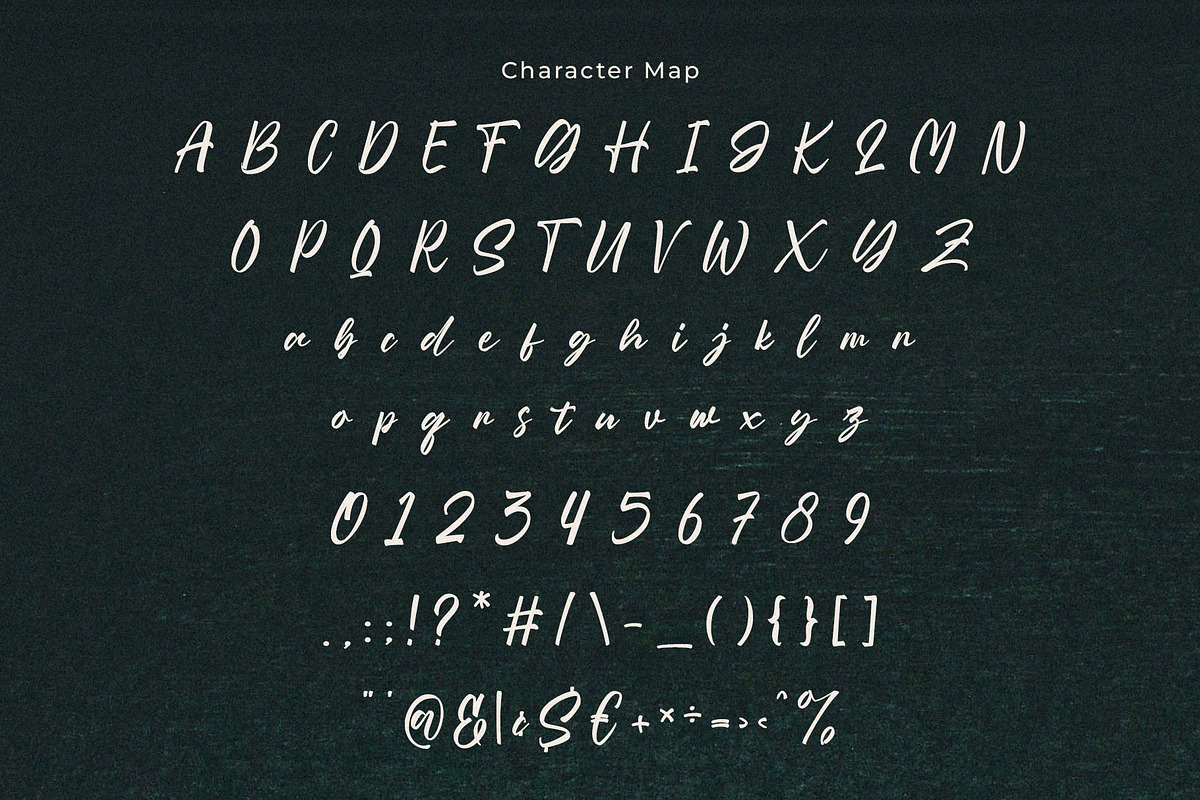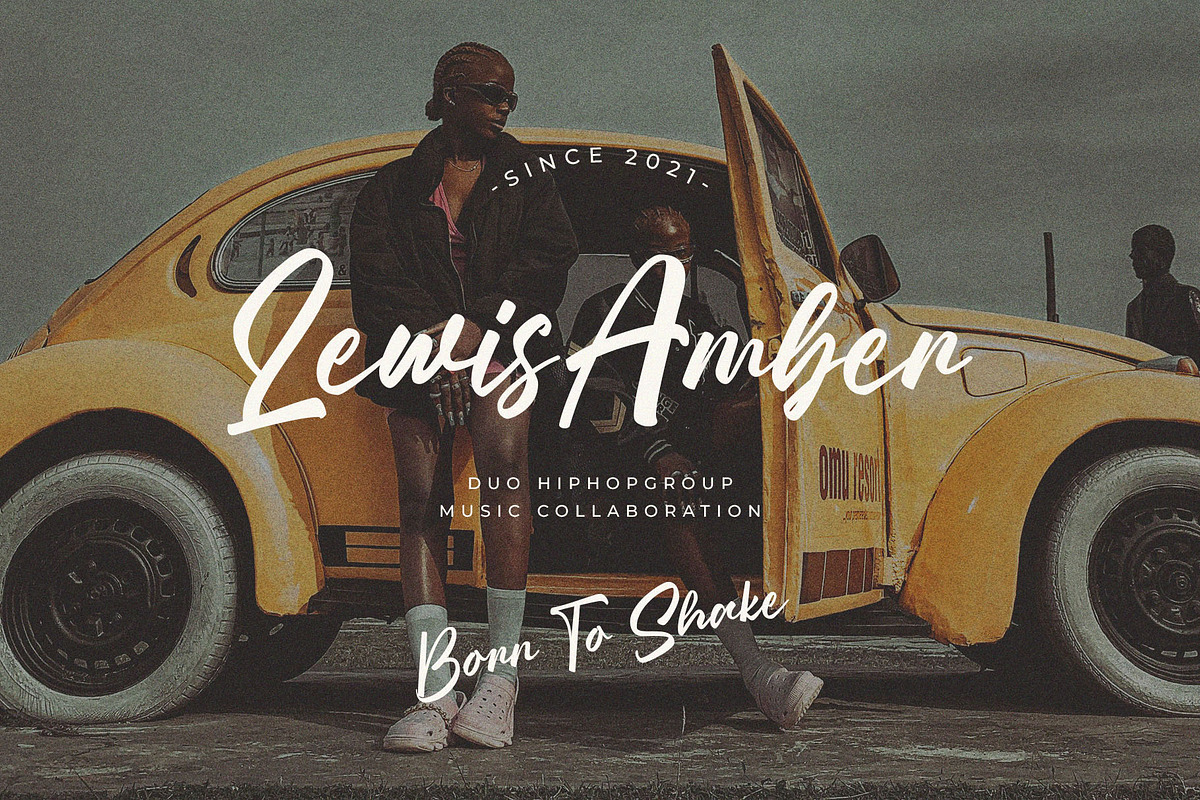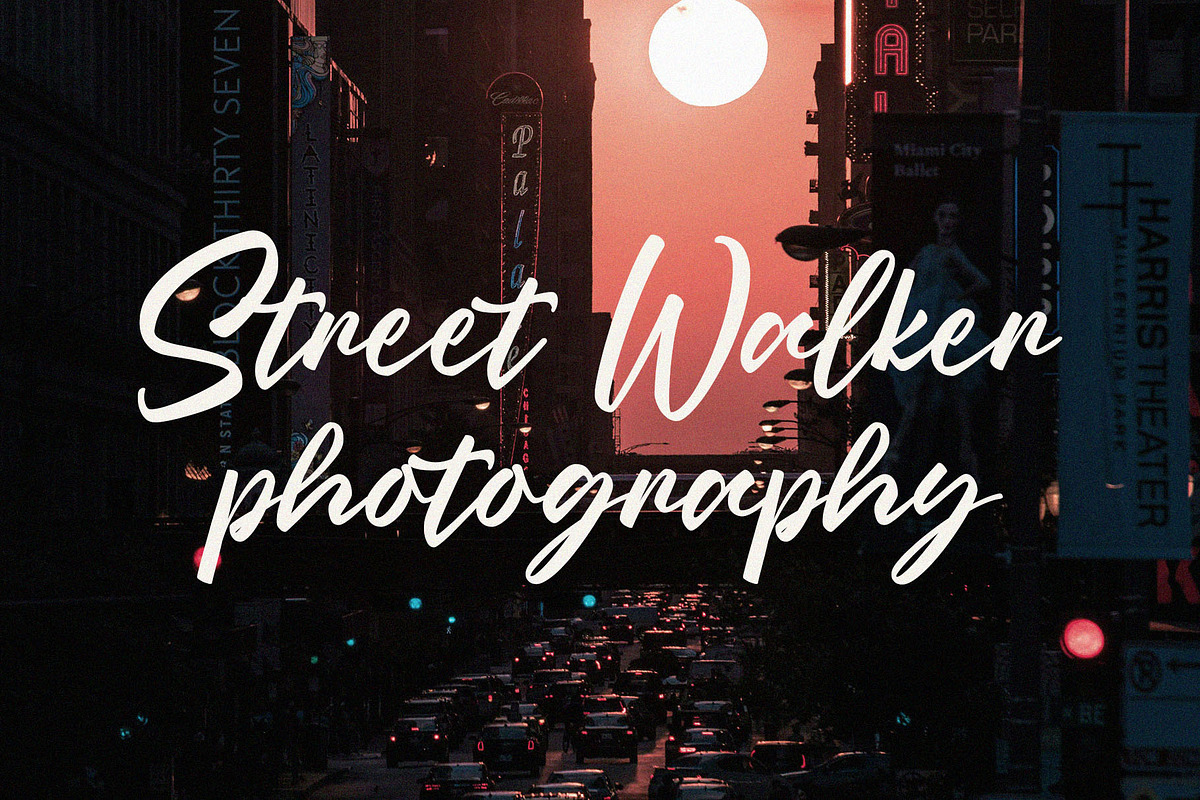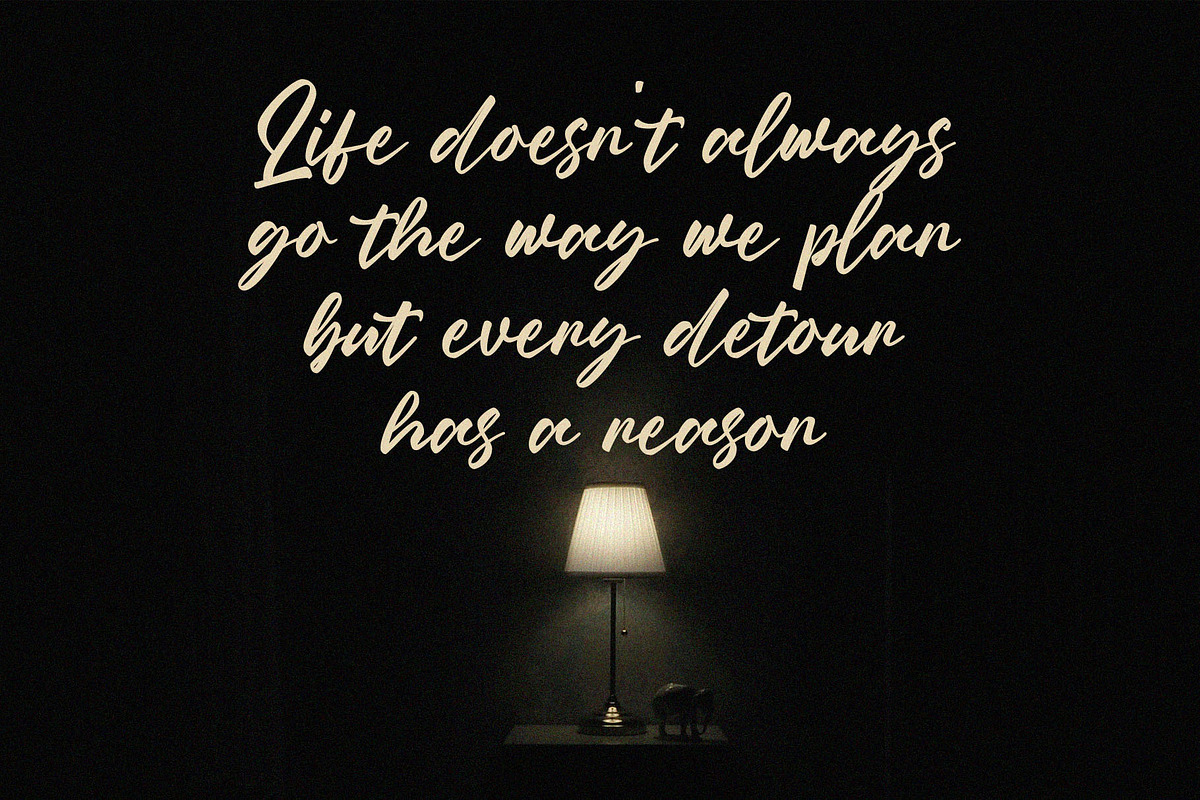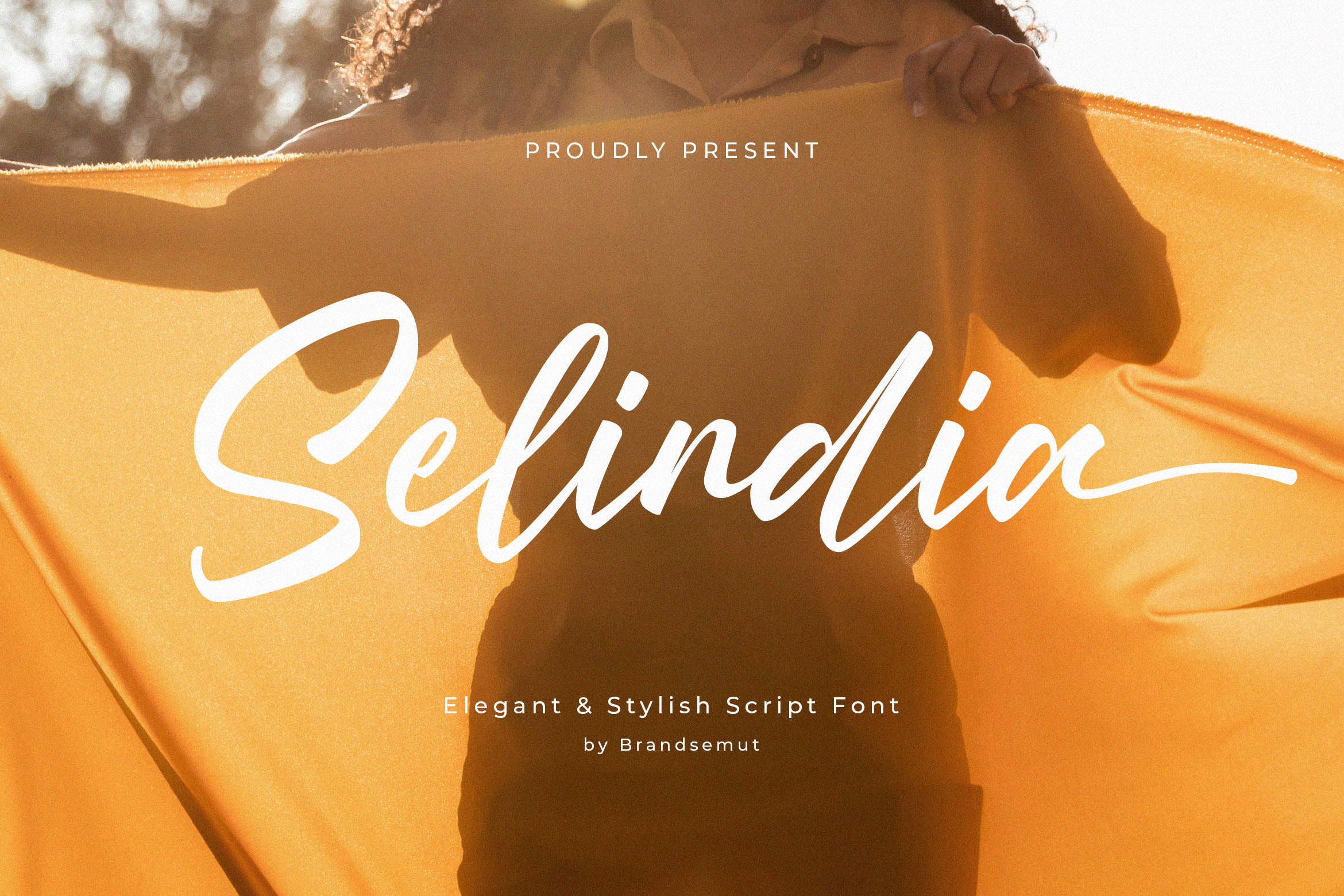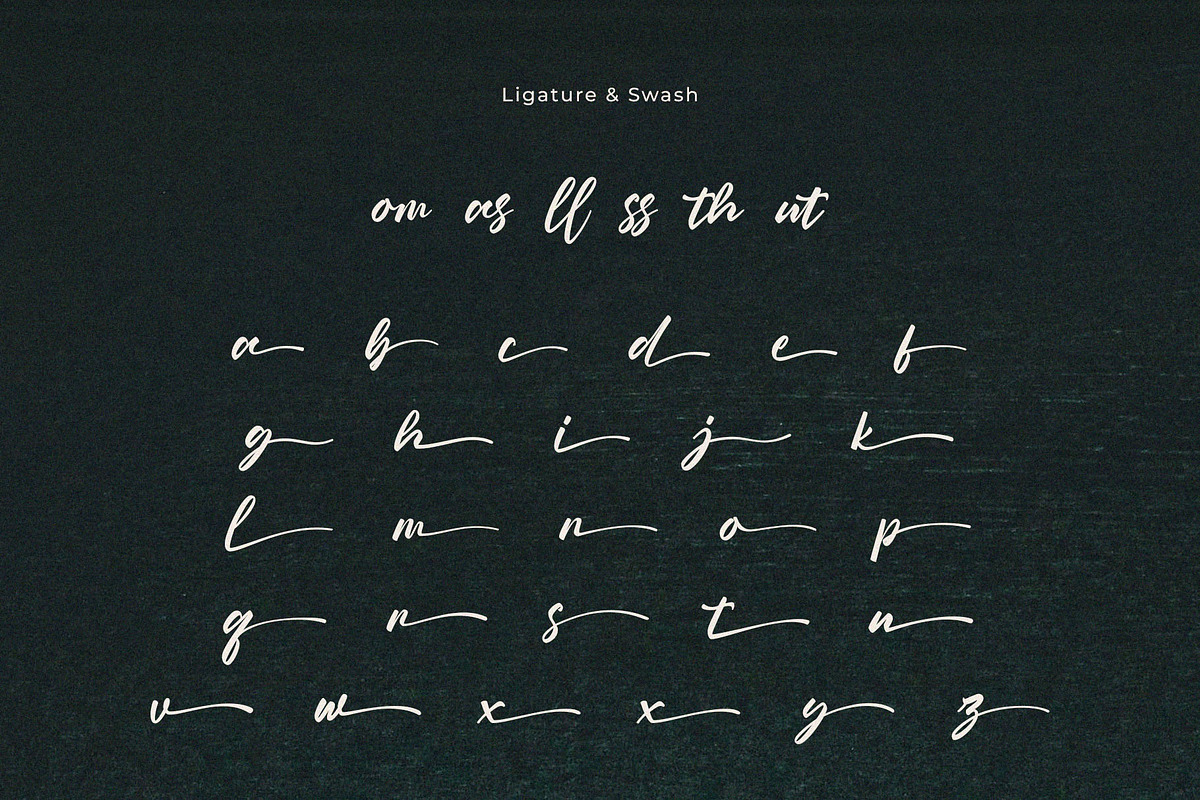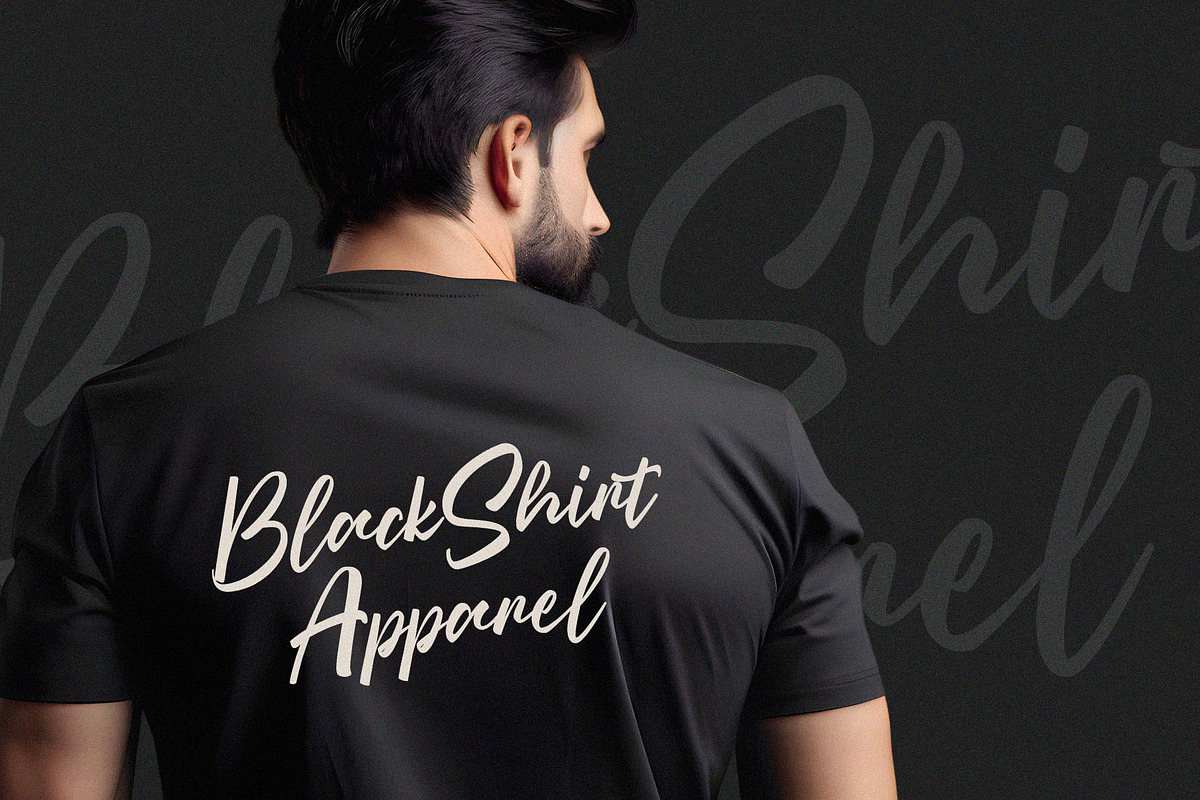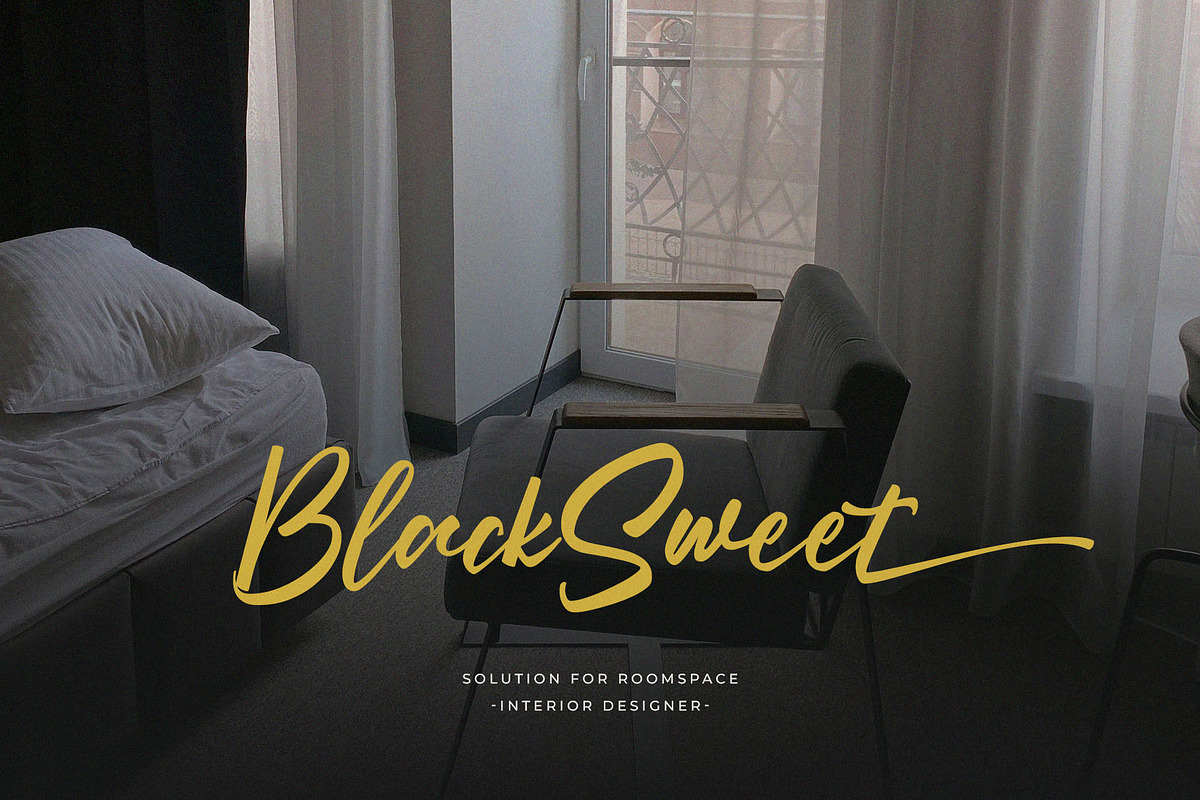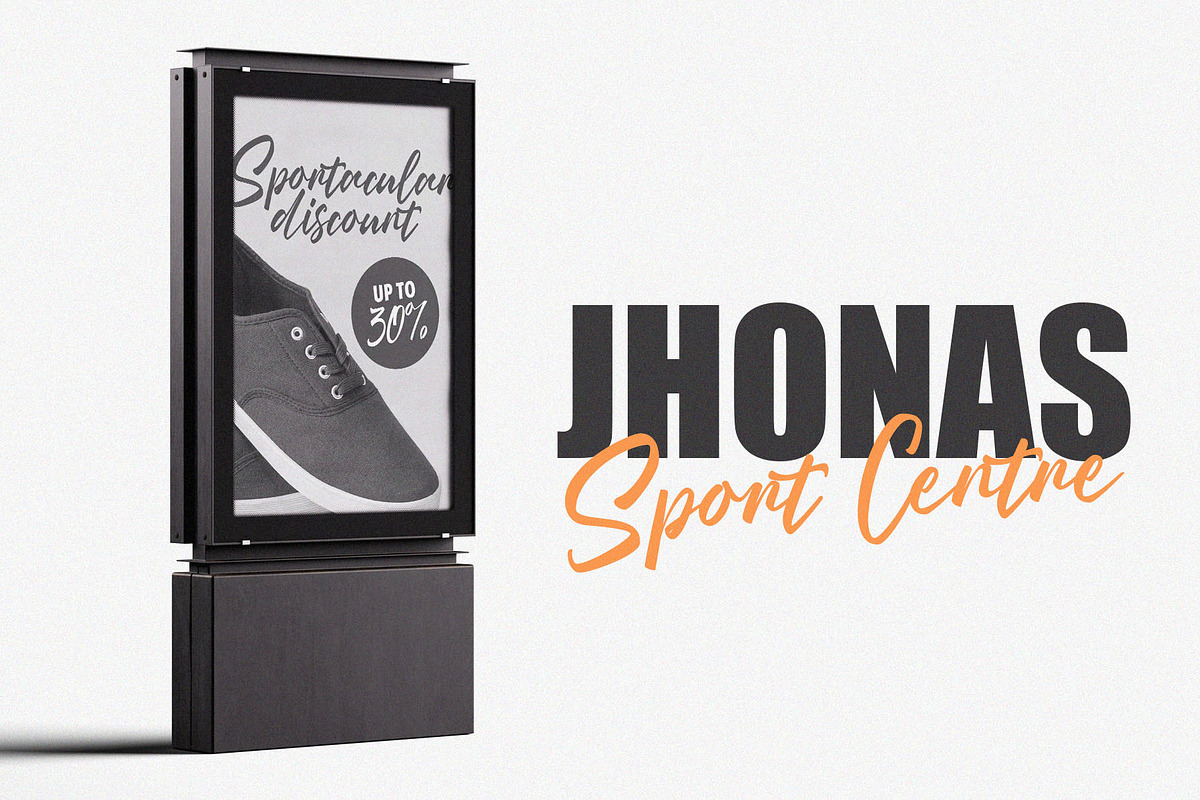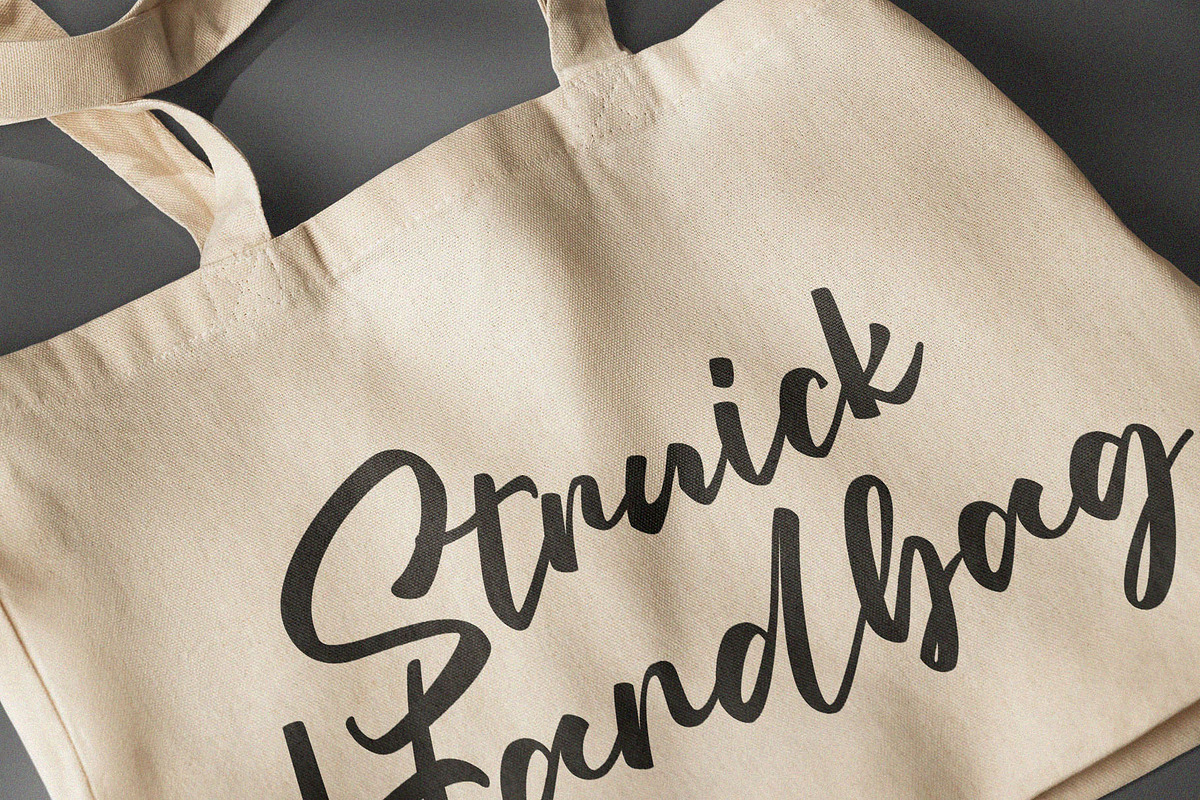
Selindia – Elegant Script Font
Introducing the new Selindia Script Font is a elegant and stylish handwritten script, that you can use to perfect your design. You will get full set of lowercase and uppercase letters, multilingual, numerals and punctuation.